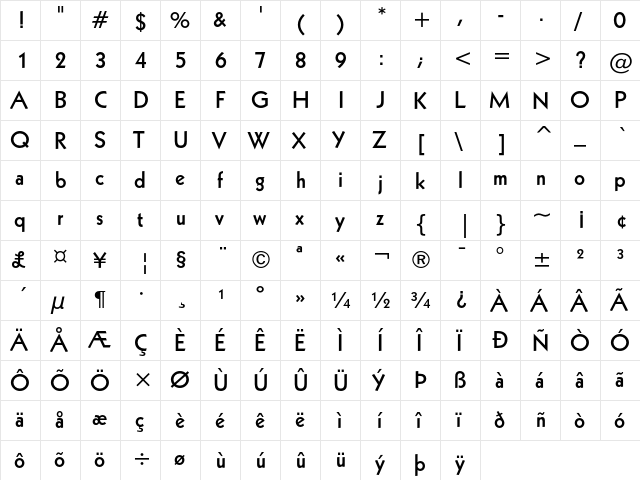
Geometric 231 Bold
Design Context for Geometric 231 Typeface
Geometric 231 is a composed and adaptable typeface that performs quietly and consistently across a wide range of design contexts. The heavy weight commands attention and anchors typographic hierarchies.
Pro Tip: Use Geometric 231 in both headline and body roles to test its range before committing to a single application.